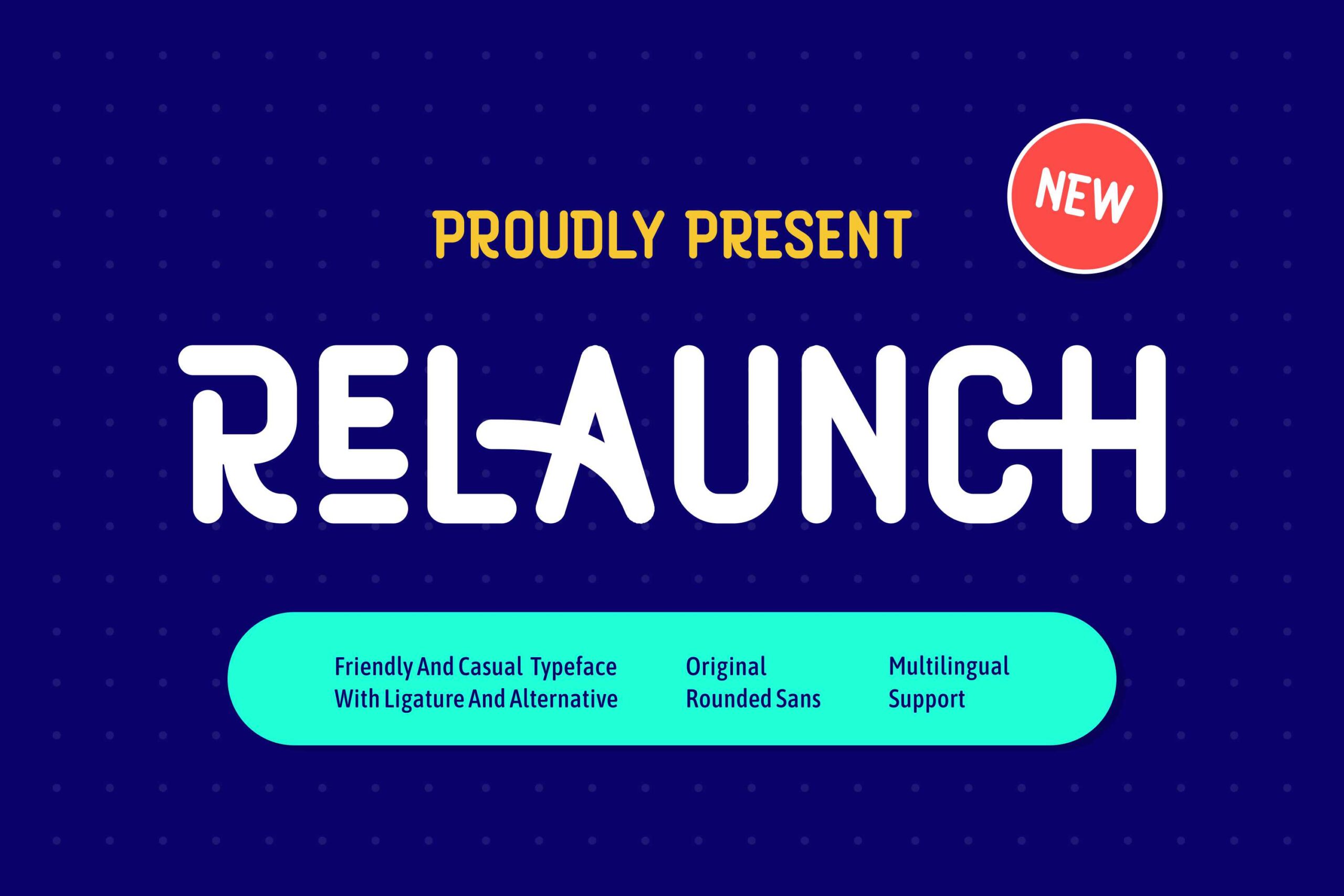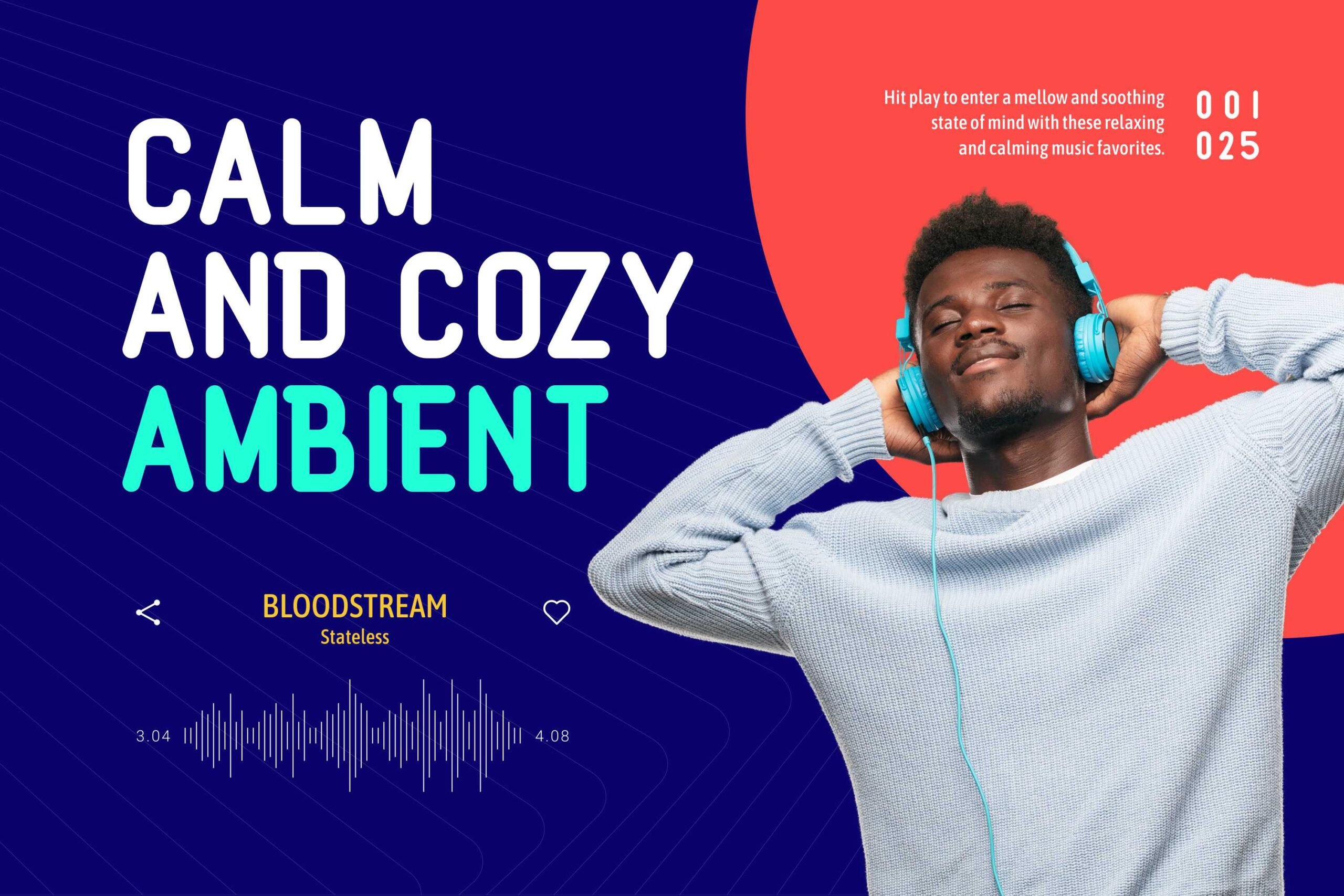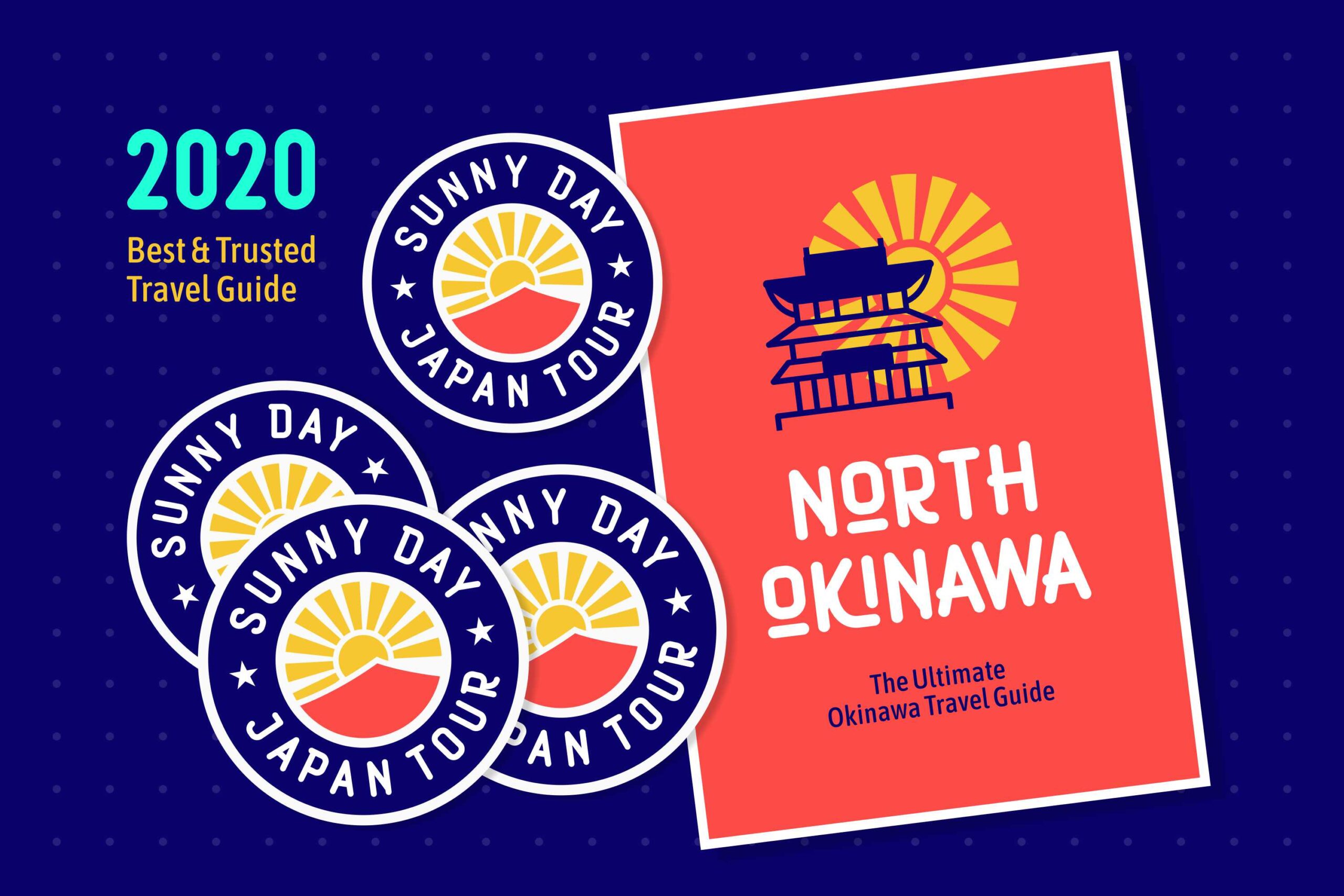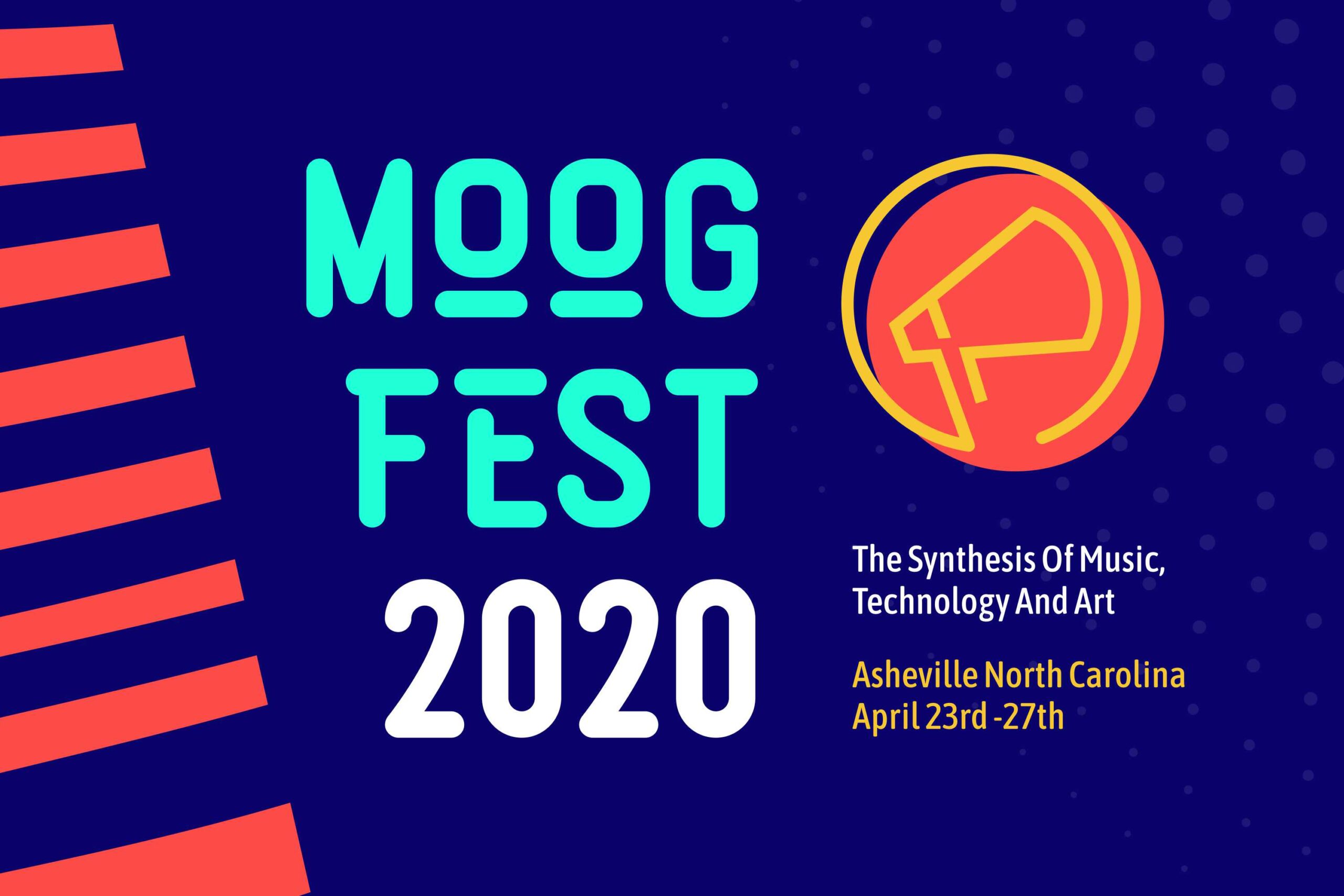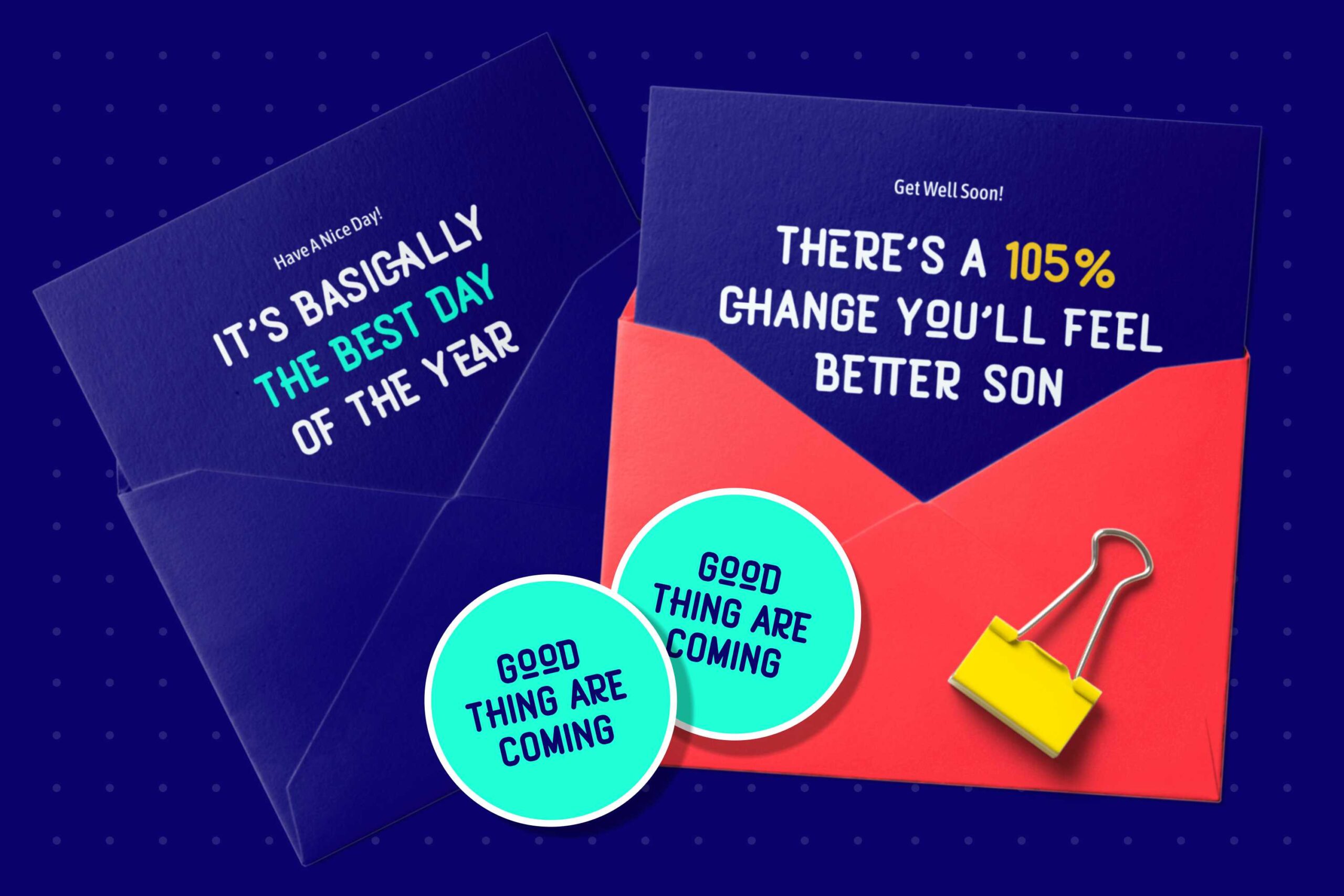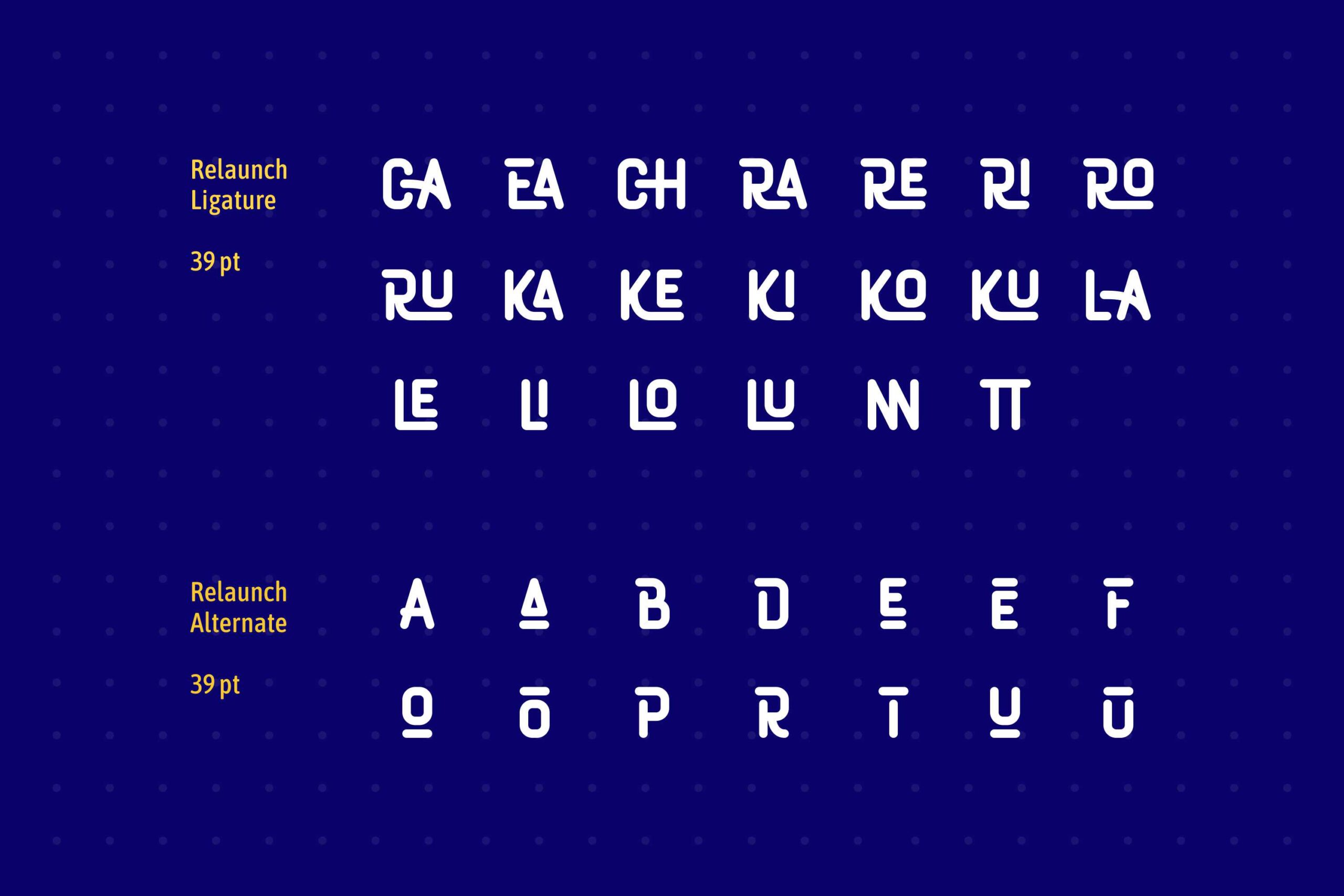
Relaunch is a playful and friendly rounded sans serif typeface, designed with a touch of modern tech-inspired aesthetics. Its soft curves and monospaced proportions create a casual and approachable personality, perfect for branding, posters, greeting cards, or music and travel-themed visuals.
This font includes unique features such as ligatures and alternates that give designers more creative freedom. Whether used in standard, ligature-enhanced, or alternate style, Relaunch adds character and versatility to your design projects. It supports multilingual characters and works well in both display and mid-sized text usage.
Relaunch